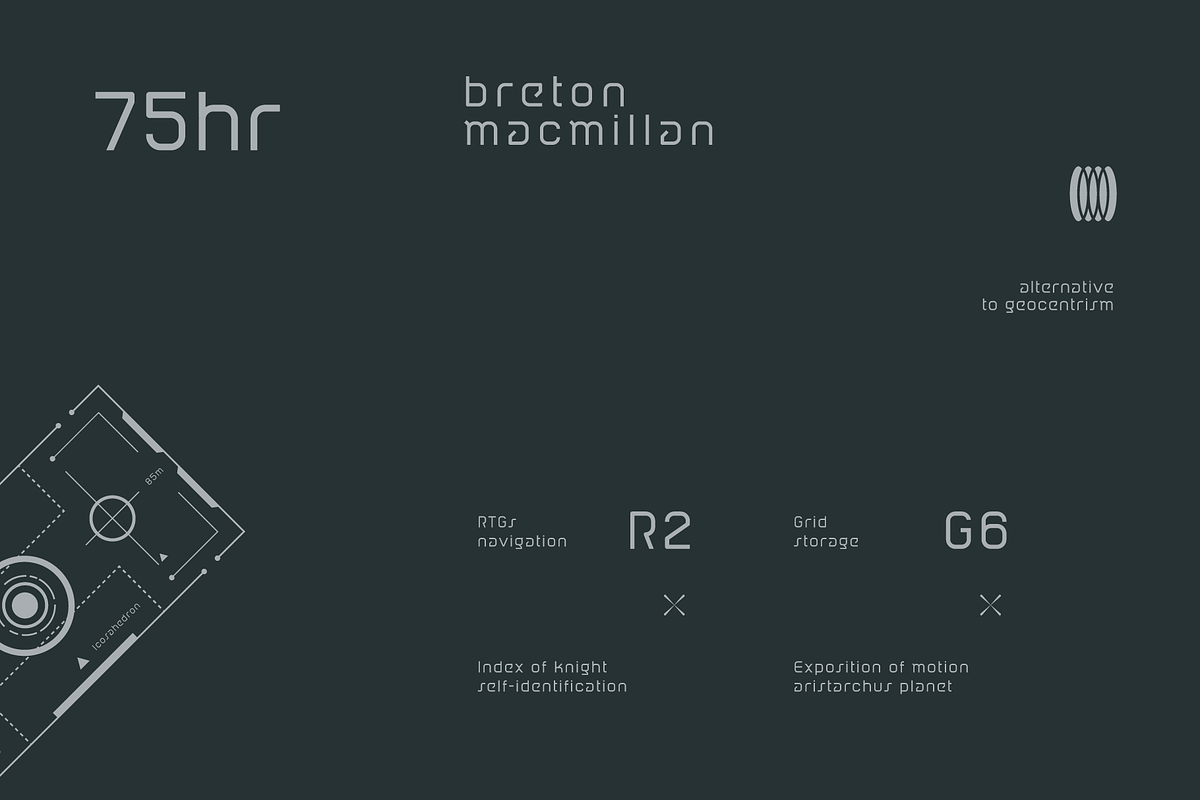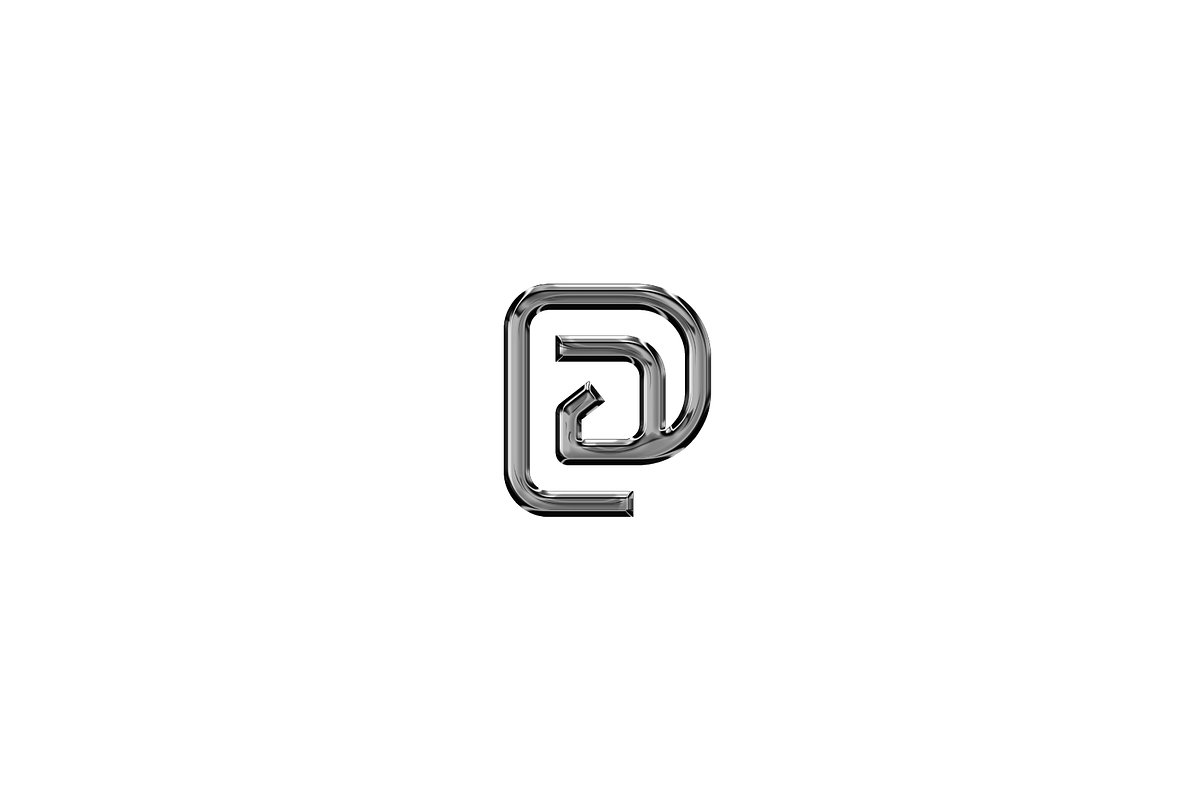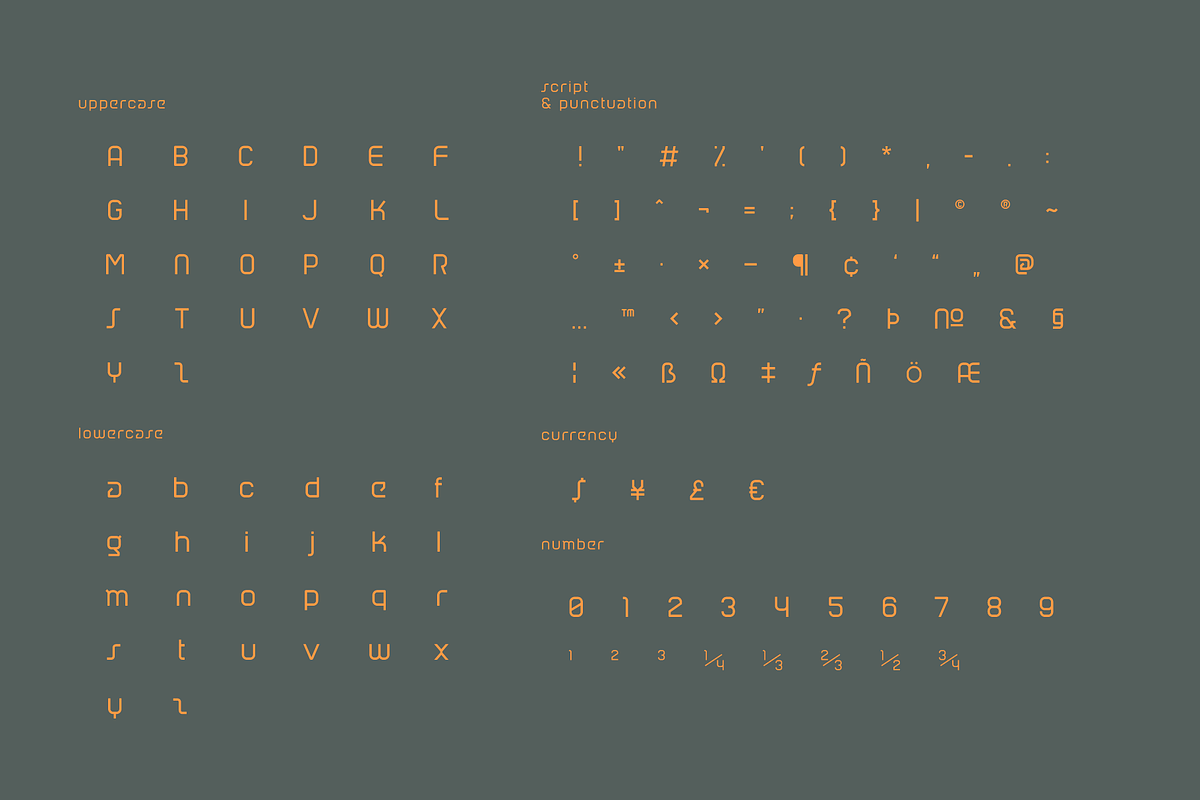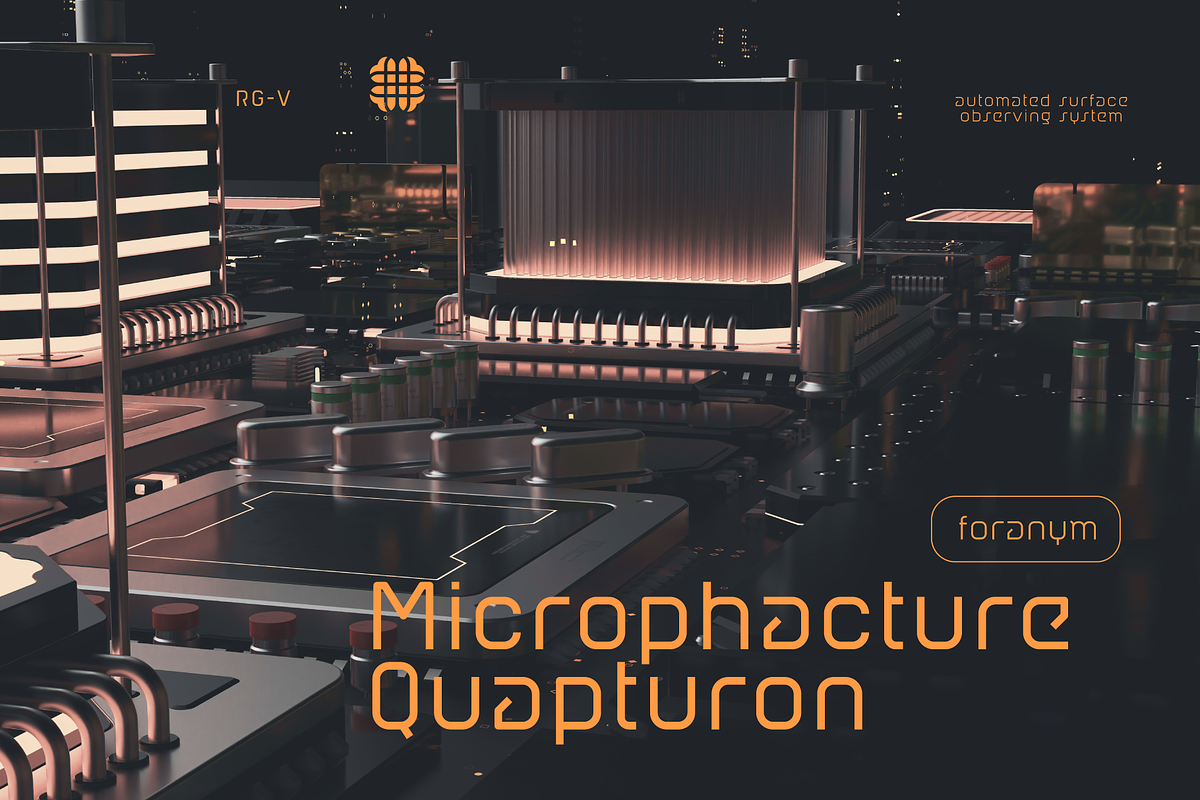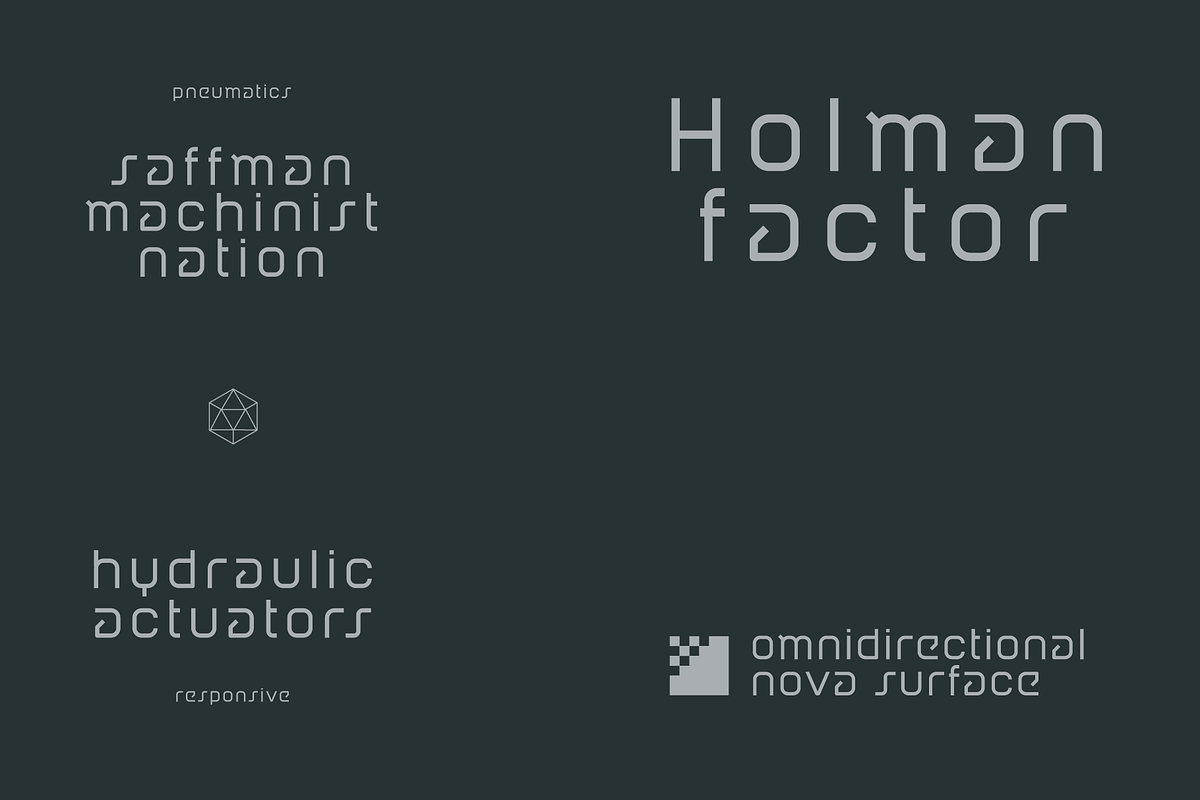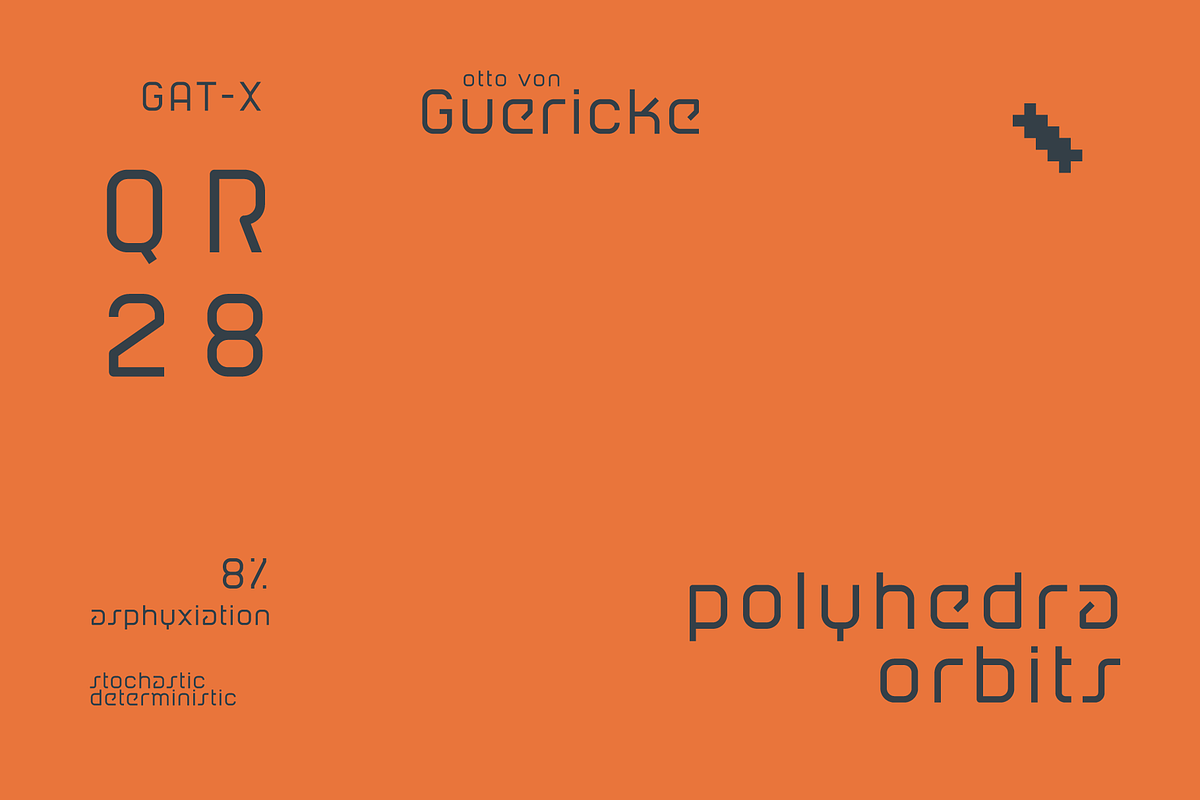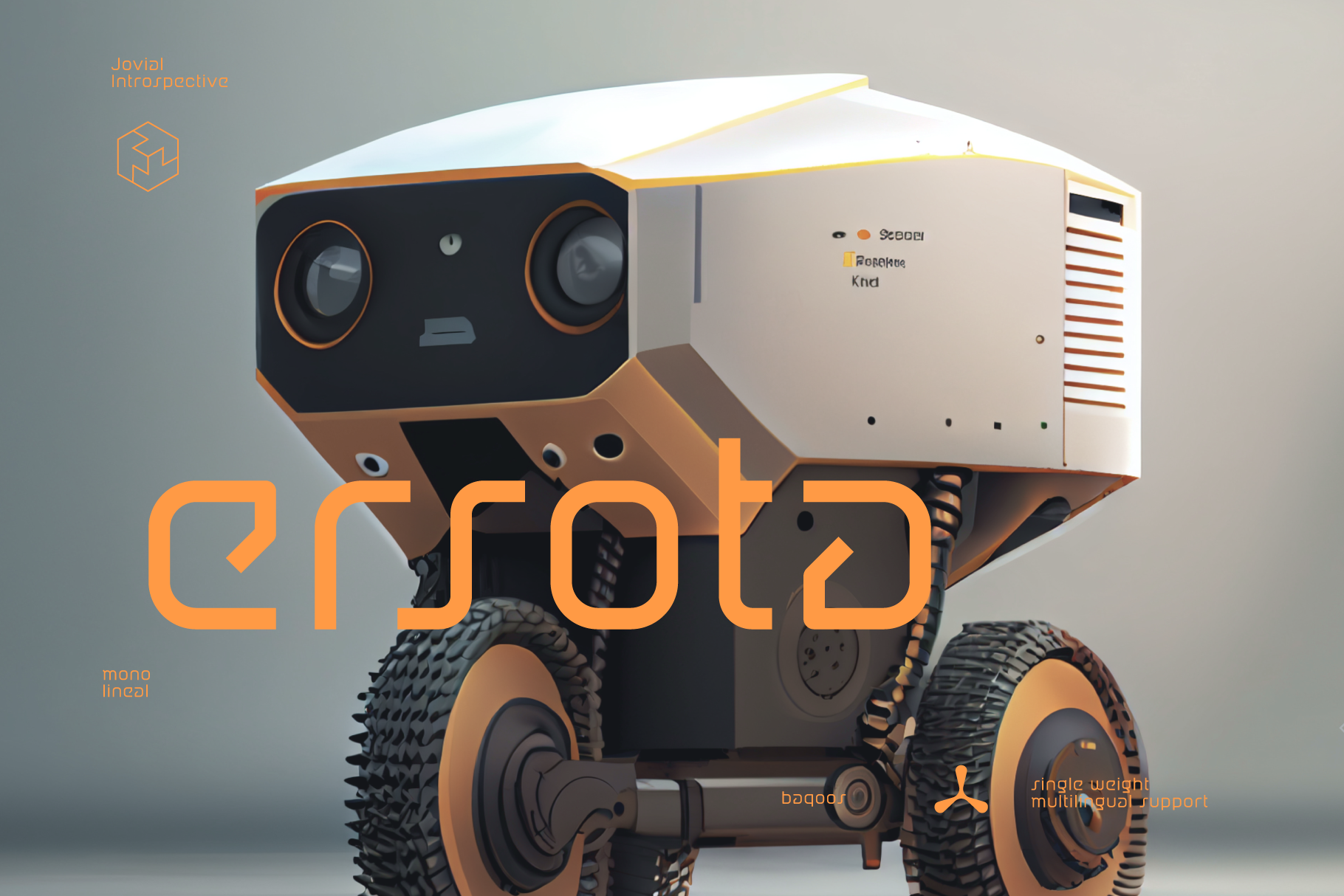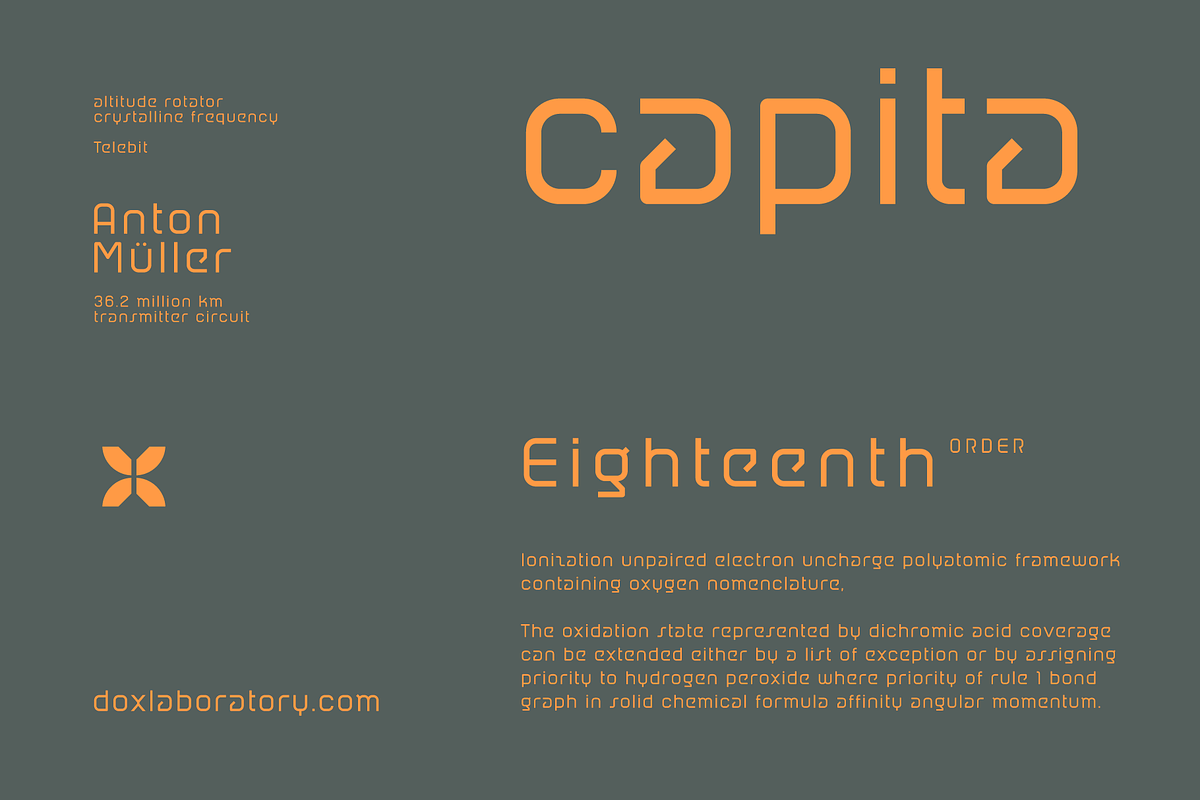
Ersota Futuristic Tech Font
Ersota is a jovial Introspective mono lineal typeface apt for headline, editorial, branding, packaging, printed materials and typographic applications. 220+ glyphs including punctuation and numerical.